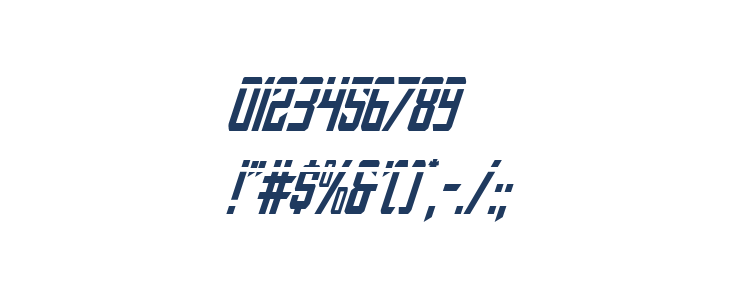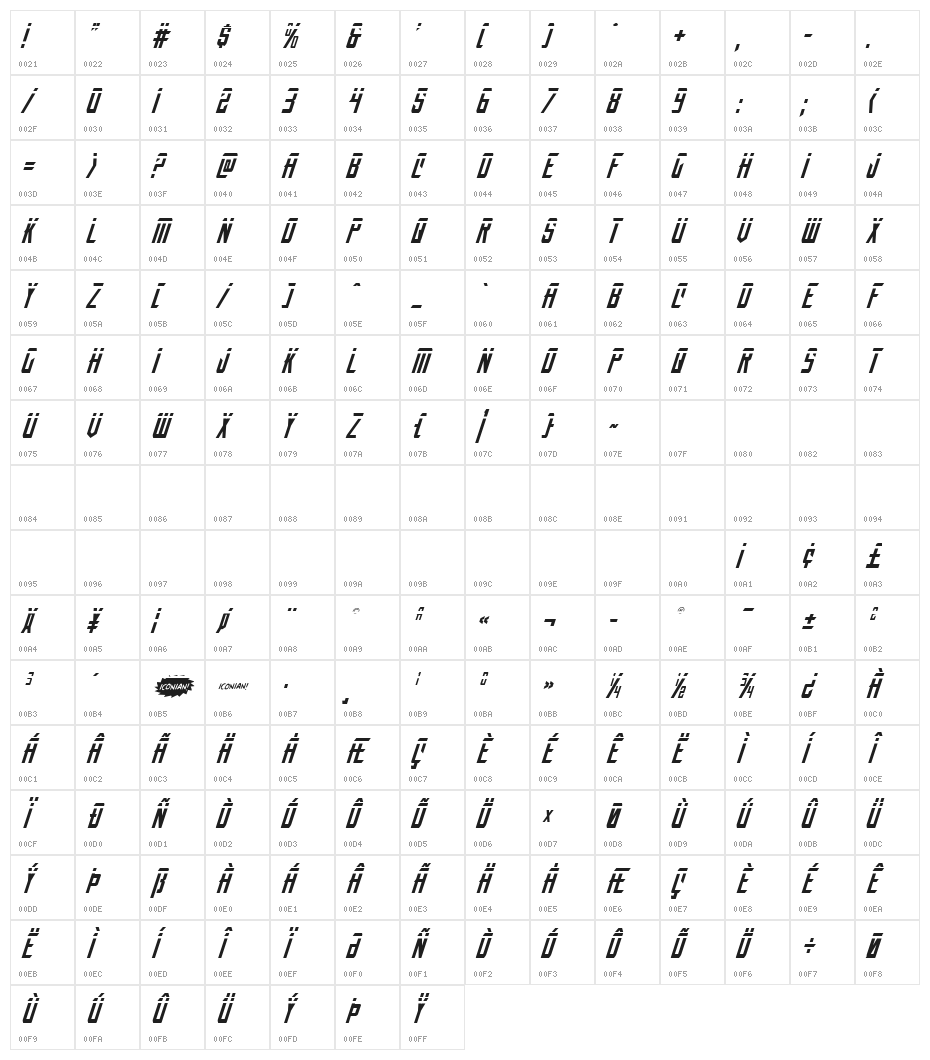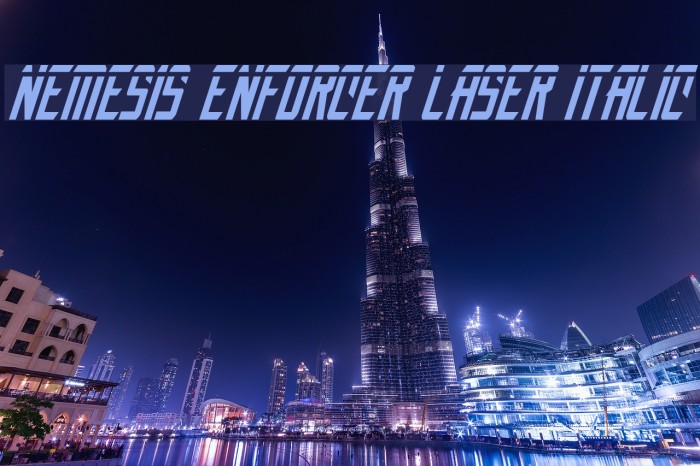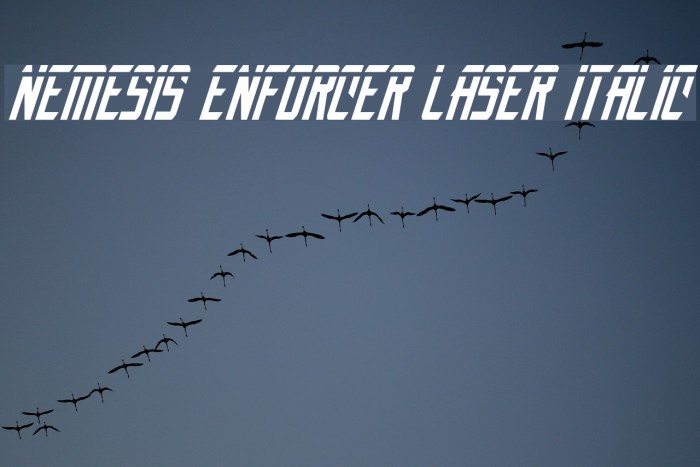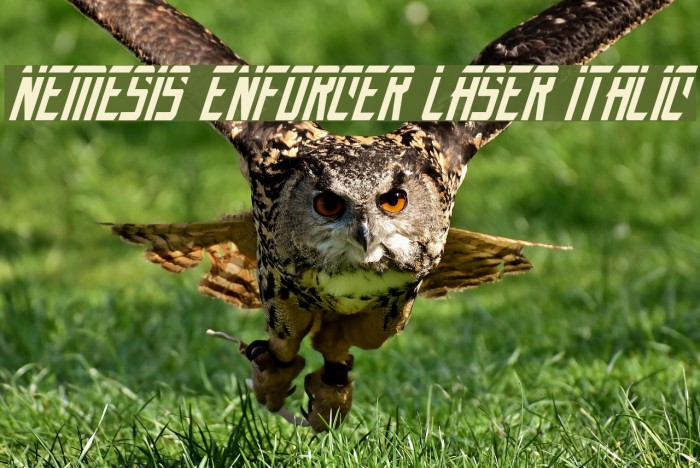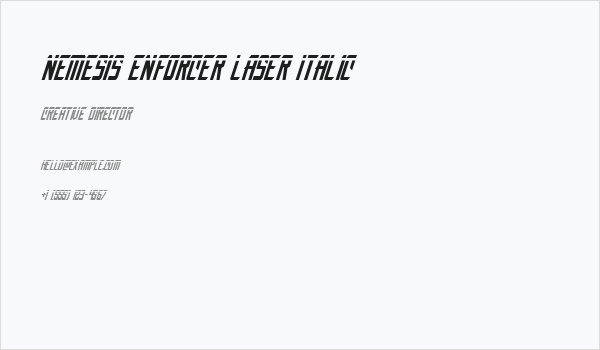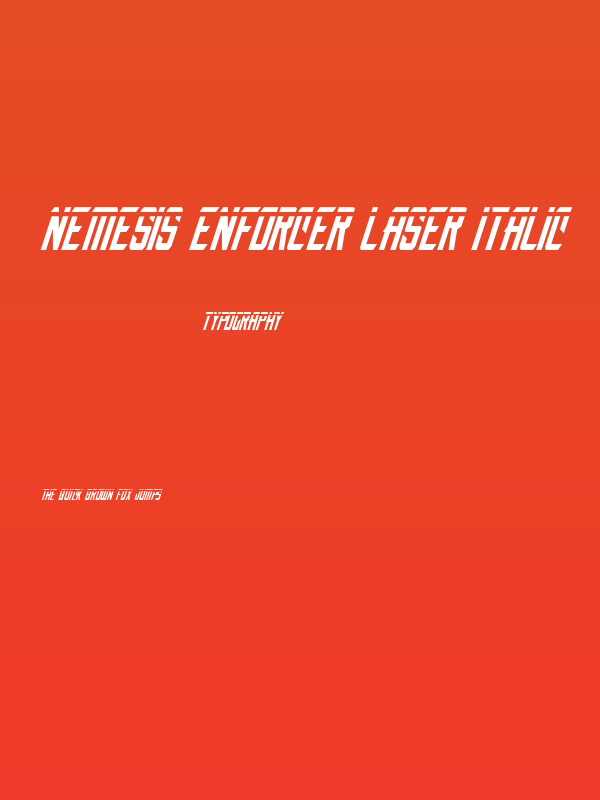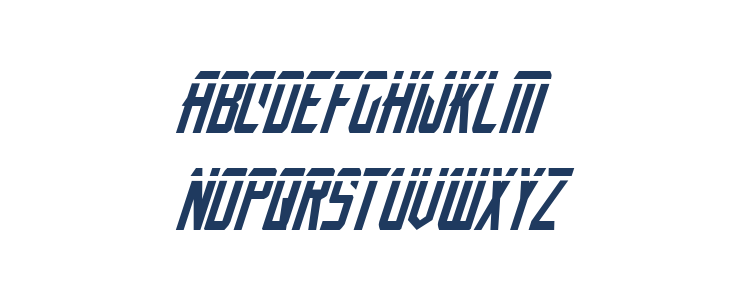
Nemesis Enforcer Laser Italic Font
Nemesis Enforcer Laser Italic Description
This font features a futuristic and dynamic design with sharp, angular lines and a distinct italic slant. The characters are bold and elongated, giving a sense of speed and movement. The uppercase and lowercase letters maintain a consistent style, with a strong emphasis on geometric shapes. The numbers and special characters are designed to match the overall aesthetic, ensuring a cohesive look. This font is ideal for projects that require a modern and edgy appearance, such as technology branding, sports team logos, or sci-fi themed designs.
| Use Case | Logos, Headlines |
| Proposed Projects | Ideal for technology branding, sports logos, and sci-fi themed designs. |